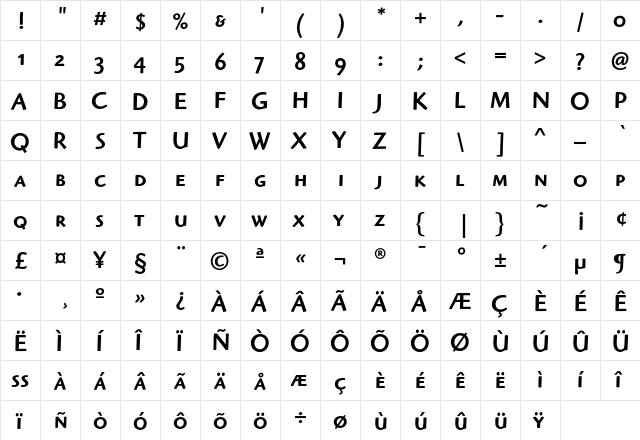
HighlanderEF MediumSC
Design Context for HighlanderEF Typeface
HighlanderEF is a composed and adaptable typeface that performs quietly and consistently across a wide range of design contexts.